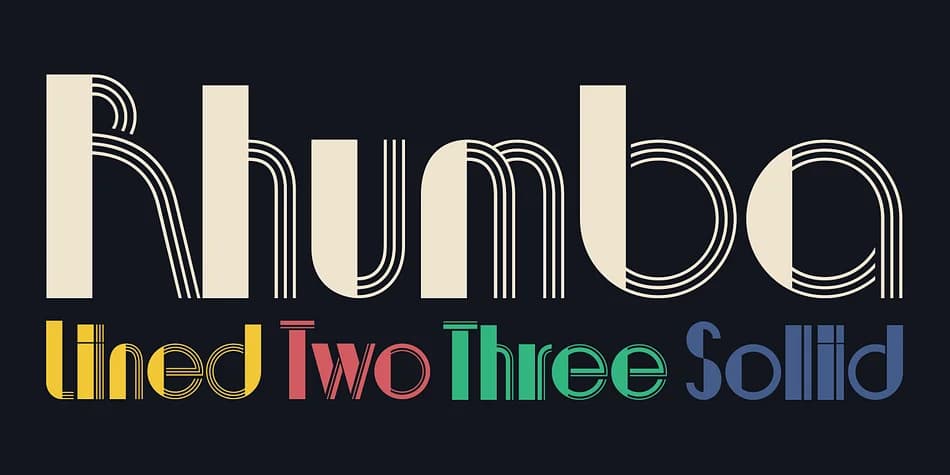
Rhumba by Stiggy & Sands is a geometric Art Deco typeface that brings 1970s energy into contemporary design work. Originally sourced from Barrio Lined, a film typeface digitized from LetterGraphics archives in the early seventies, Rhumba was reimagined and significantly expanded well beyond its single-style origins to give designers genuine creative flexibility.
The real strength of Rhumba lies in its three distinct visual interpretations. Rather than offering just a simple lined version, the family fills, layers, and redistributes those geometric lines in different ways. This approach (inspired by what made Prisma so useful) delivers radically different visual effects from identical letterforms, letting you create depth and interest without hunting for complementary typefaces. Each style works beautifully on its own or stacks with the others.
With 382 characters available per style, you have everything needed for international work and extended glyph sets. Rhumba lands perfectly for art deco event invitations, speakeasy-themed promotional materials, retro apparel graphics, and vintage product packaging where that 70s geometric sensibility truly belongs. Layer the multiple variants, mix filled and outlined versions, or choose a single style for bold, period-accurate typography that actually stands out. Grab Rhumba on Creative Fabrica and start experimenting with these layered possibilities.
Rhumba Font is a decorative font that shines as a display or heading face. Pair it with a clean sans-serif or serif font for body text β the contrast creates a clear hierarchy while the two styles stay balanced and easy to read.